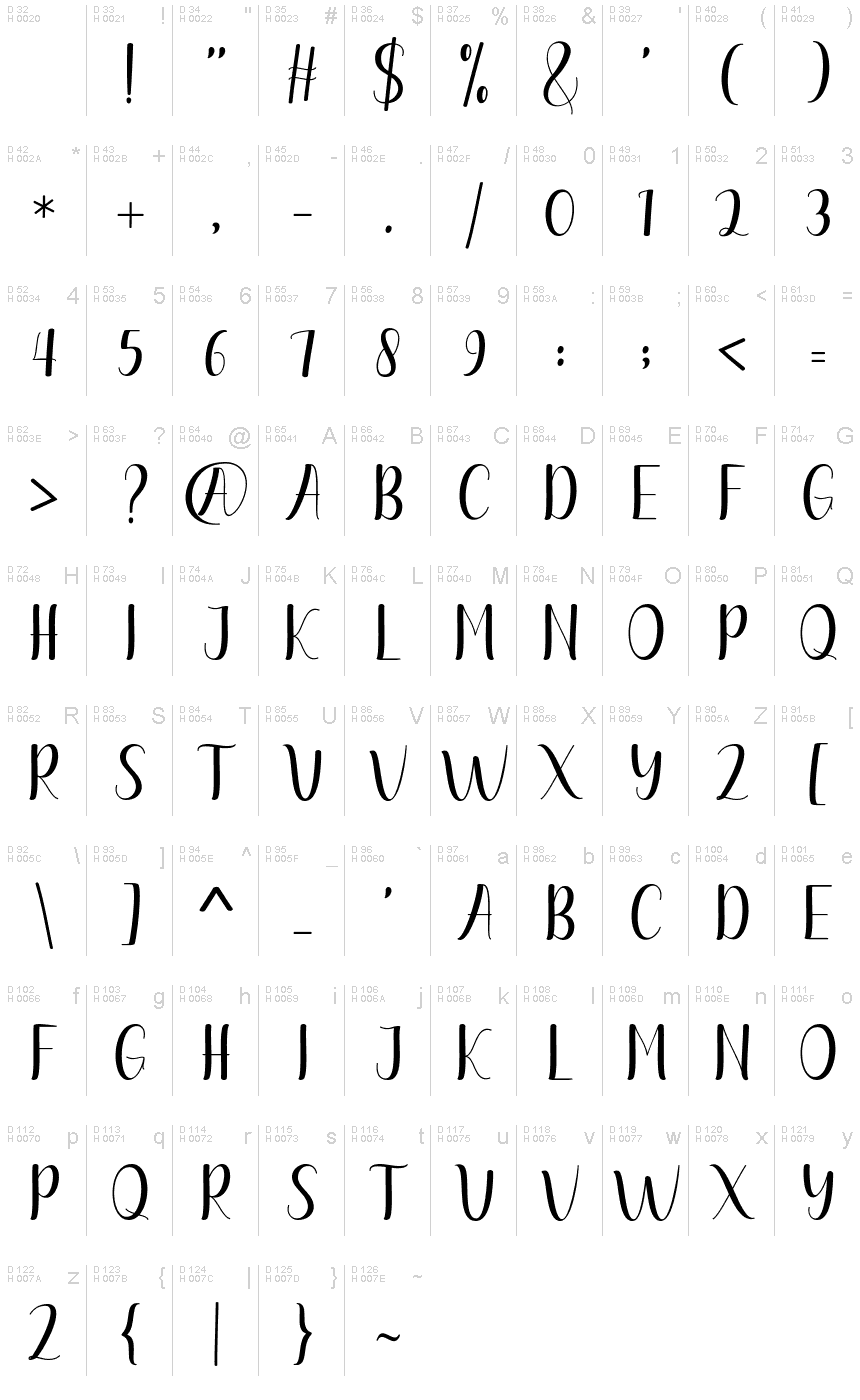
BartleenSans
Bartleen Sans, a mesmerizing calligraphy font designed by Cut Story, elegantly combines the essence of tradition and modernity. With its semi-light weight and semi-condensed width, this captivating typeface is perfect for a wide range of projects. Its graceful strokes and intricate detailing make it an ideal choice for wedding invitations, luxury brand logos, and elegant packaging designs. Whether you're aiming for a refined vintage aesthetic or a contemporary feel with a touch of sophistication, Bartleen Sans will effortlessly elevate your projects to new heights of elegance and refinement.